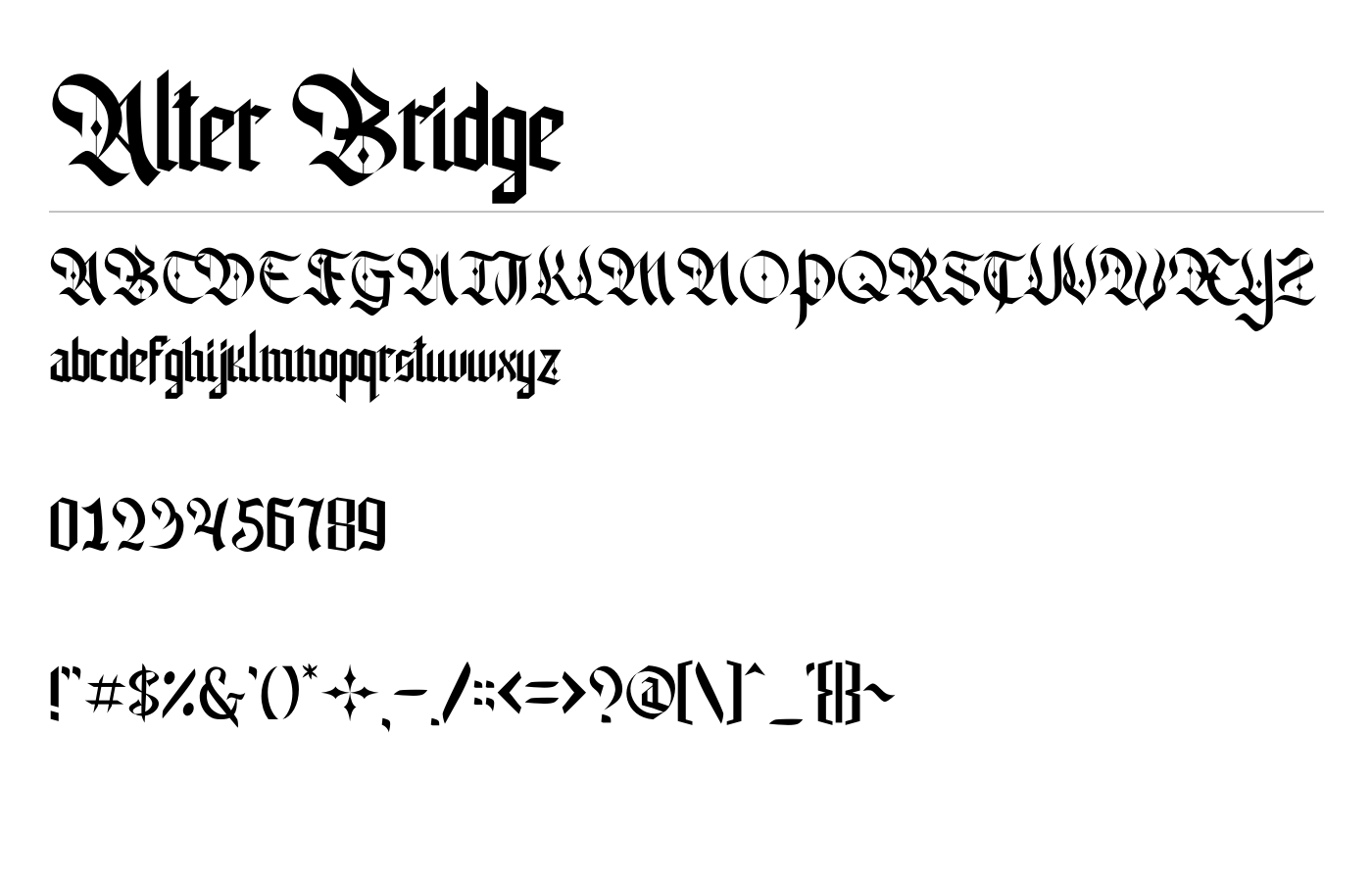
Alter Bridge is a bold blackletter-style font with sharp, angular strokes and intricate details that evoke a medieval and gothic feel. Its strong contrast and ornate letterforms make it perfect for dramatic headlines, logos, and branding that seek a vintage or rebellious edge. This font works best where a striking, historic, and distinctive impression is desired.
Alter Bridge Font
About Alter Bridge Font
| Designer | Yudistira |